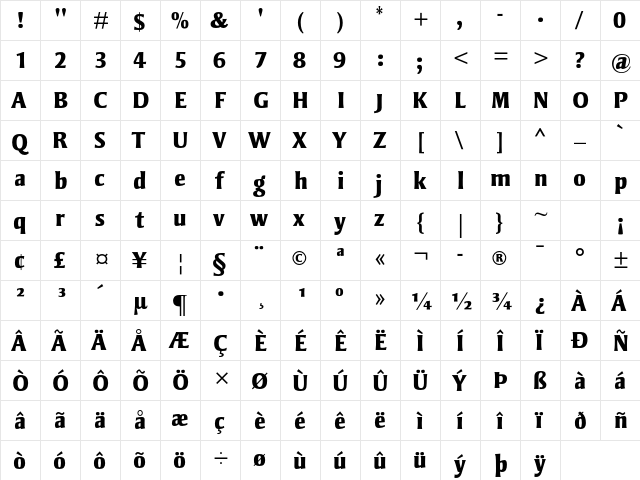
Strayhorn MT Std Extra Bold
| Designer | Michael Harvey |
Design Context for Strayhorn MT Std Typeface
Strayhorn MT Std takes a measured approach to typography — its balanced proportions and neutral character make it a reliable workhorse for both digital and print work. The heavy weight commands attention and anchors typographic hierarchies.